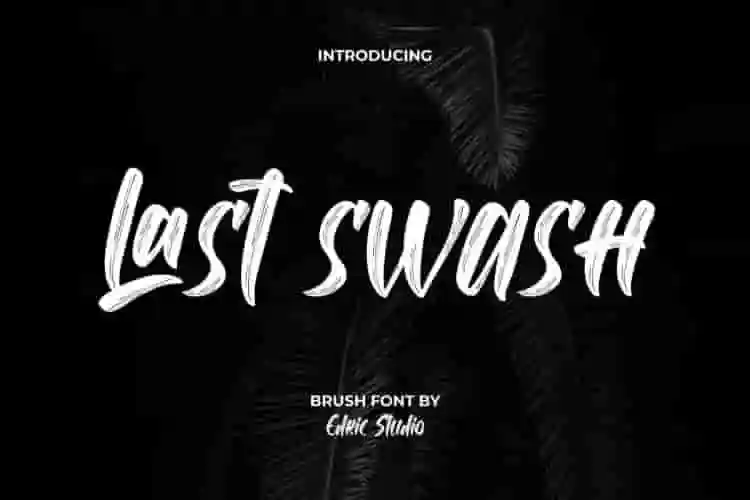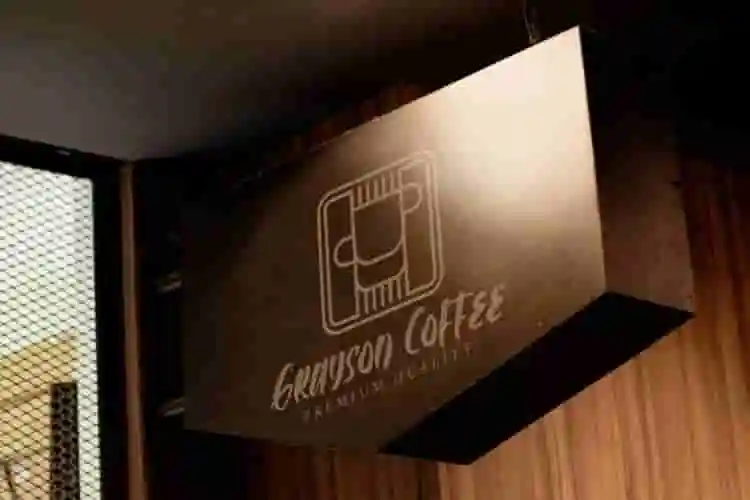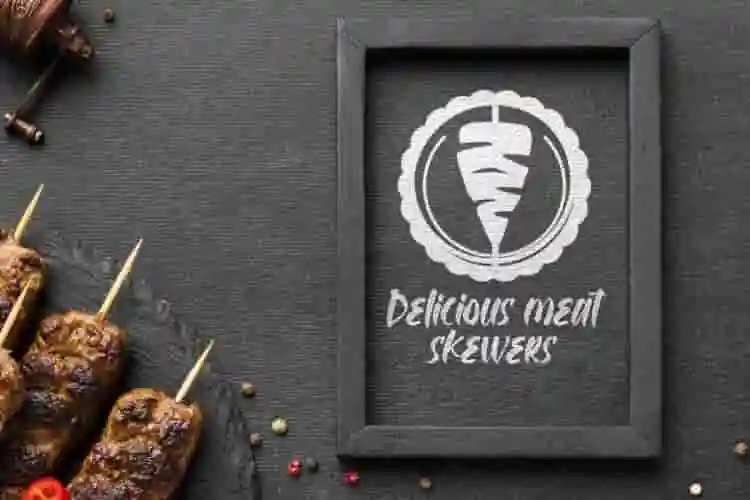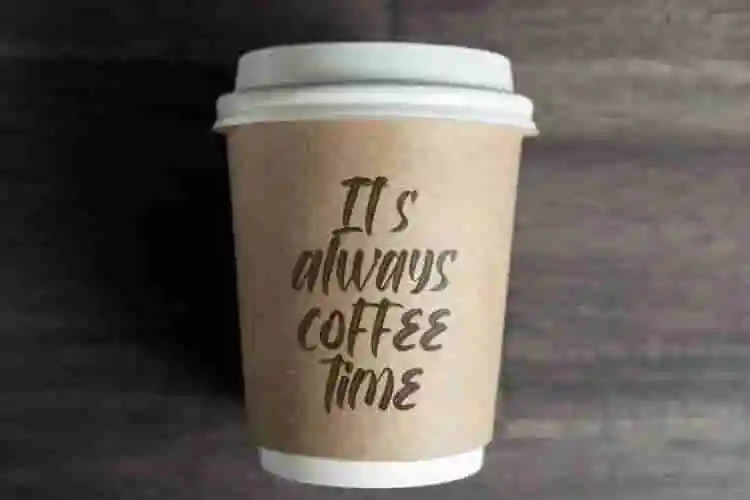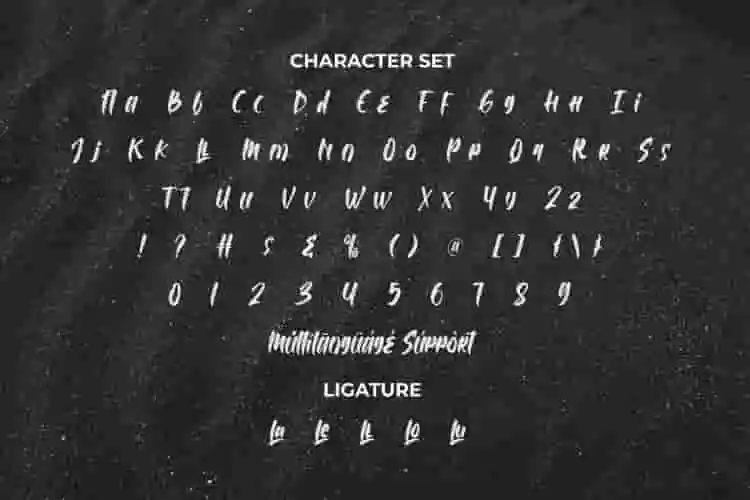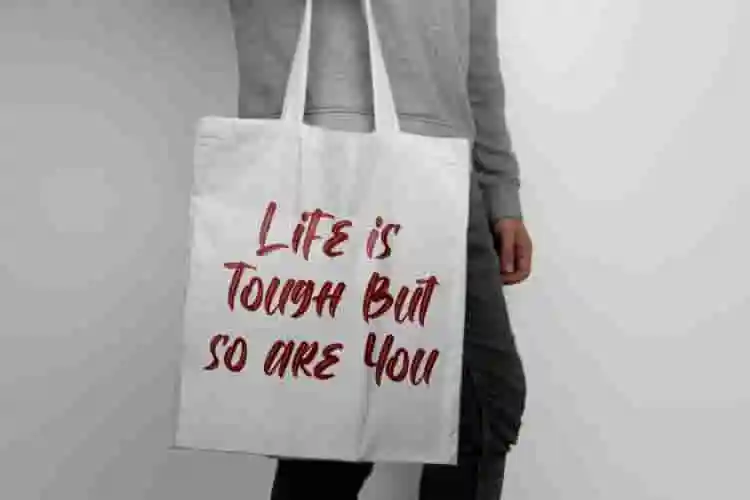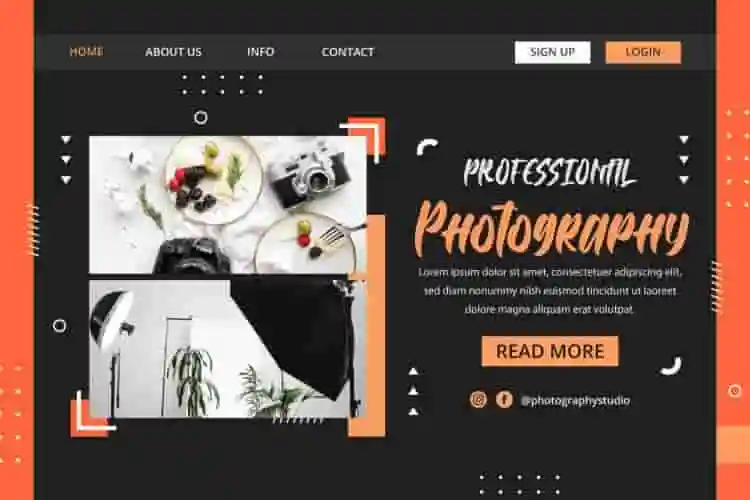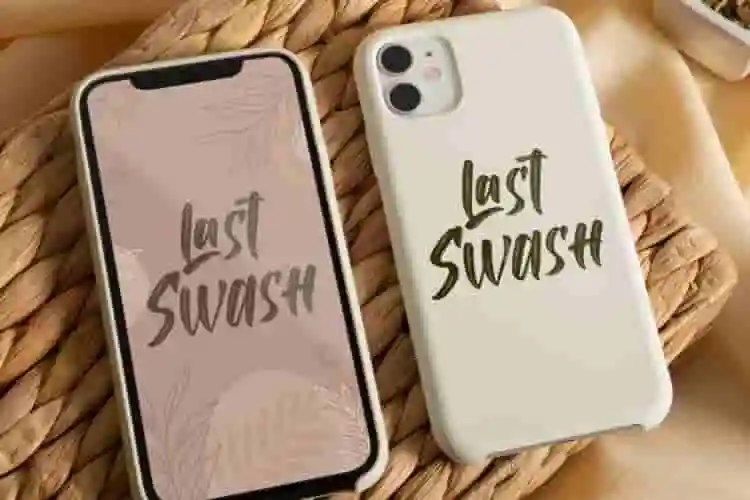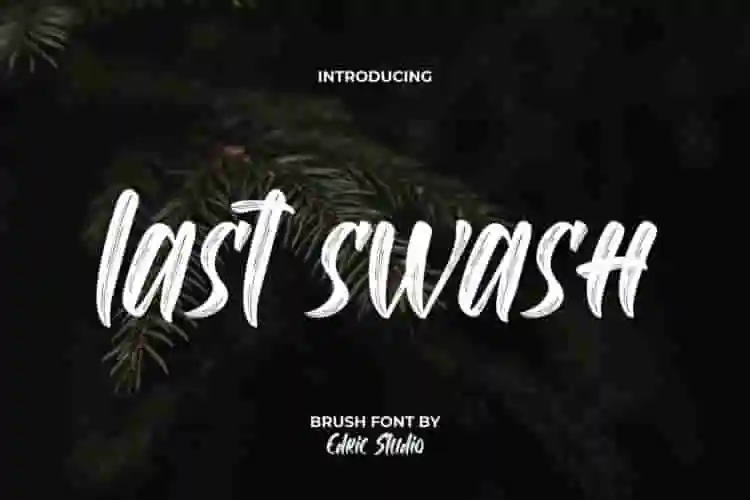
Last Swash Font is a bold brush font with an awesome look created by EdricStudio. Apart from being bold, this font has subtle thin strokes on each letter that make it stand out and easy to read making it suitable for any industry, such as accessories, band music, café, fashion, photography, printing, publishing, restaurant, and much more.
Last Swash Font comes with a full set of Uppercase and Lowercase Basic Characters, Number, a large range of Punctuation and Symbol. It has a stunning characters set, perfectly managed with well spaced and kerning. Last Swash Font will be great for any projects (with extended license) including : brand logo, frame art, label, packaging design, quote, screen print, signage, sticker, watermark, website, etc.
Introducing Last Swash, a bold and dynamic brush font designed to capture attention with raw energy and expressive strokes. Crafted for creatives who dare to stand out, this font delivers strong visual impact with every letter.
Inspired by street art, ink splashes, and fast brush movements, Last Swash Brush Font adds an urban edge and handcrafted vibe to your work. Whether you’re creating posters, branding, t-shirts, or album covers, this brush font gives your message power and personality.
Every stroke in this brush font is packed with character—gritty, textured, and real. It’s perfect for projects that need an artistic and rebellious twist without compromising on readability.
- Uppercase & lowercase characters
- Bold dry brush texture
Last Swash Font also has several Ligature characters that you can choose and use to make it perfectly bonded and stand out. Ready to use both on Windows machine or Mac with simple installations with multilingual characters supported. It’s tested to work well in the Adobe Apps (Illustrator, Adobe InDesign, Adobe Photoshop) even work on Microsoft Word. PUA Encode Characters means you can access all characters easily – Fully accessible without additional design software.